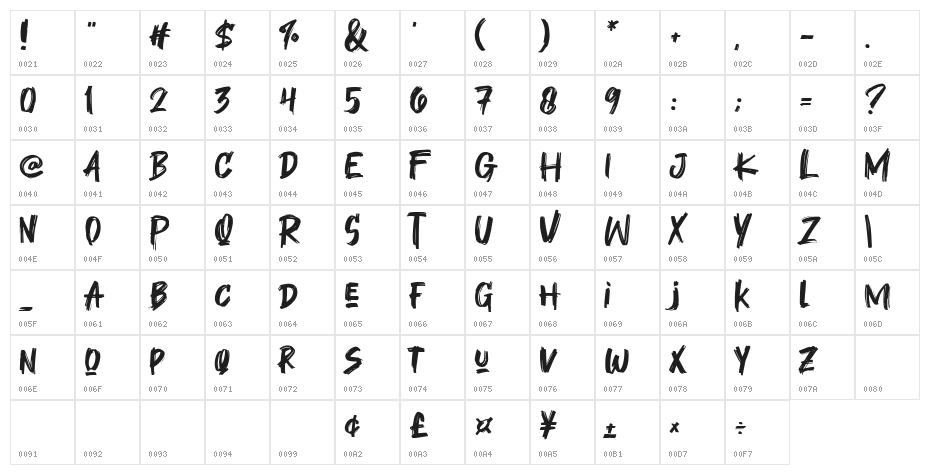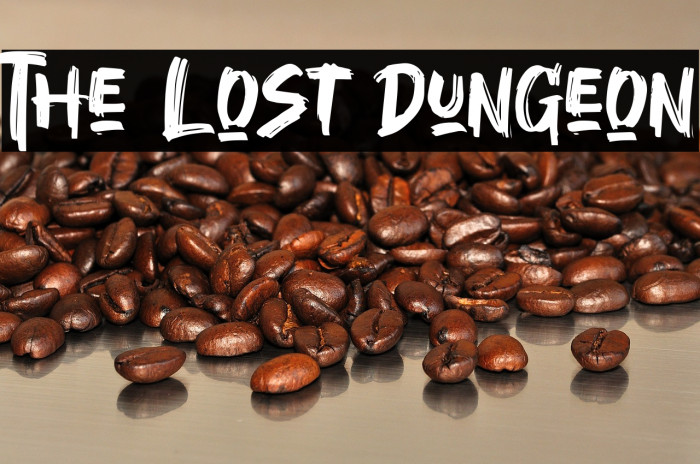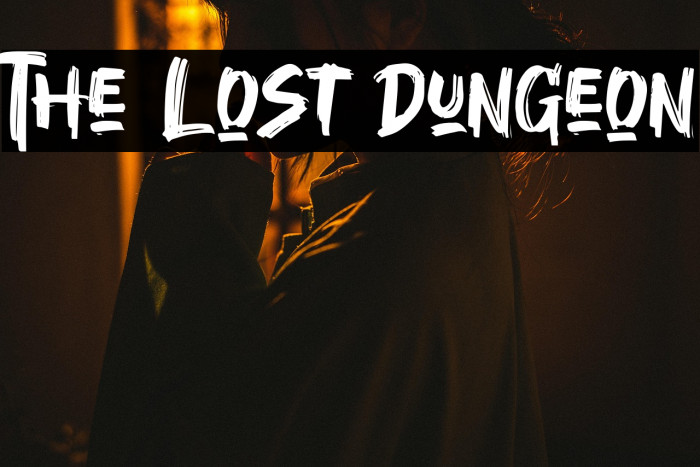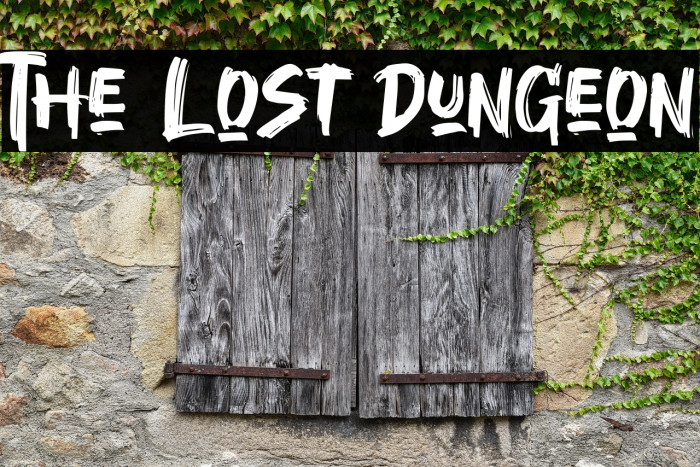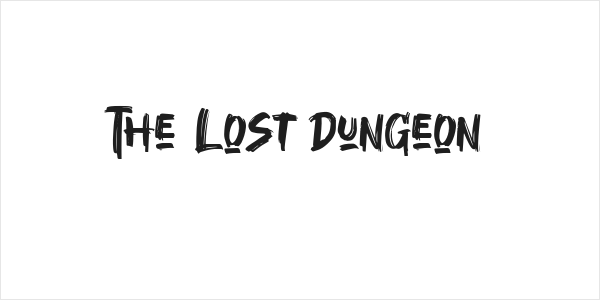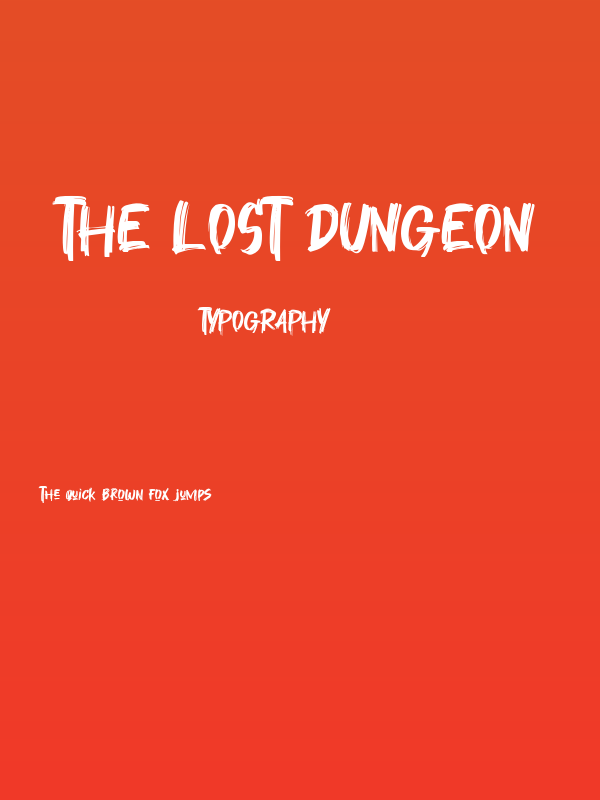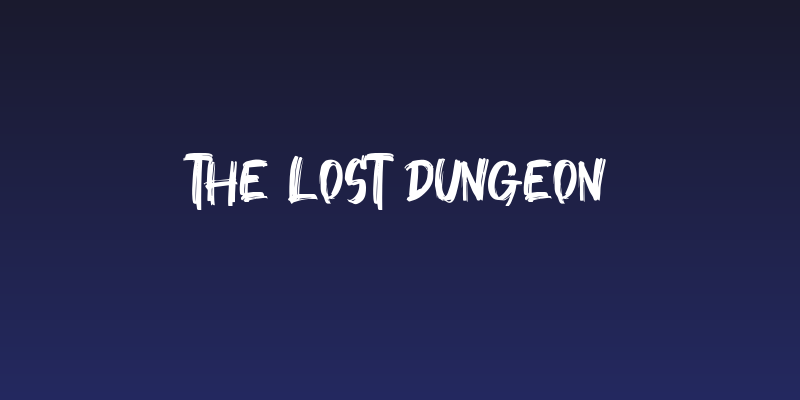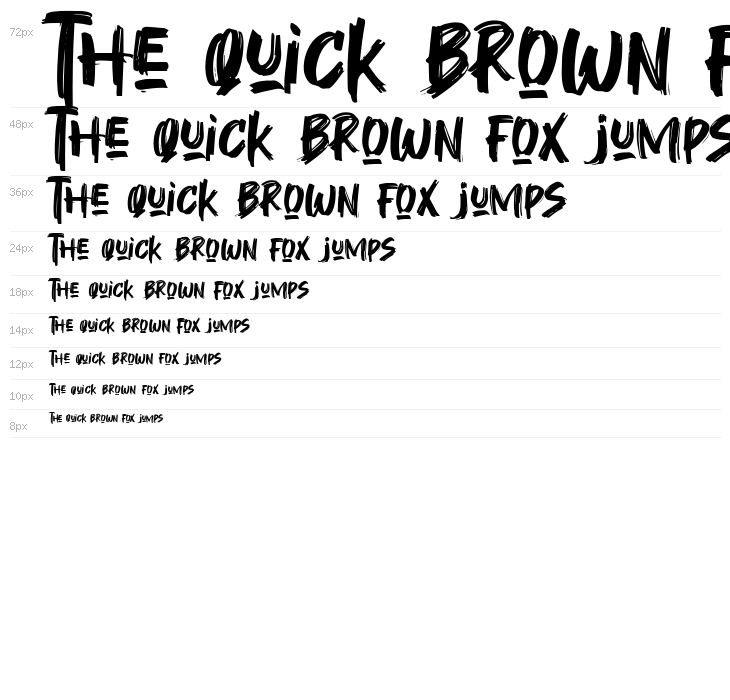
The Lost Dungeon Font
The Lost Dungeon Description
This font features a bold, expressive style with a hand-drawn appearance, characterized by its brush-like strokes and dynamic, energetic forms. The letters are irregular and slightly chaotic, giving it a raw and edgy feel. The uppercase and lowercase letters maintain a consistent style, with exaggerated curves and sharp angles that add to its dramatic flair. Numbers and special characters follow the same aesthetic, ensuring a cohesive look across all elements. The font's boldness and unique style make it stand out, ideal for projects that require a strong visual impact.
| Proposed Projects | Ideal for posters, album covers, branding, and any project needing a bold, artistic touch. |